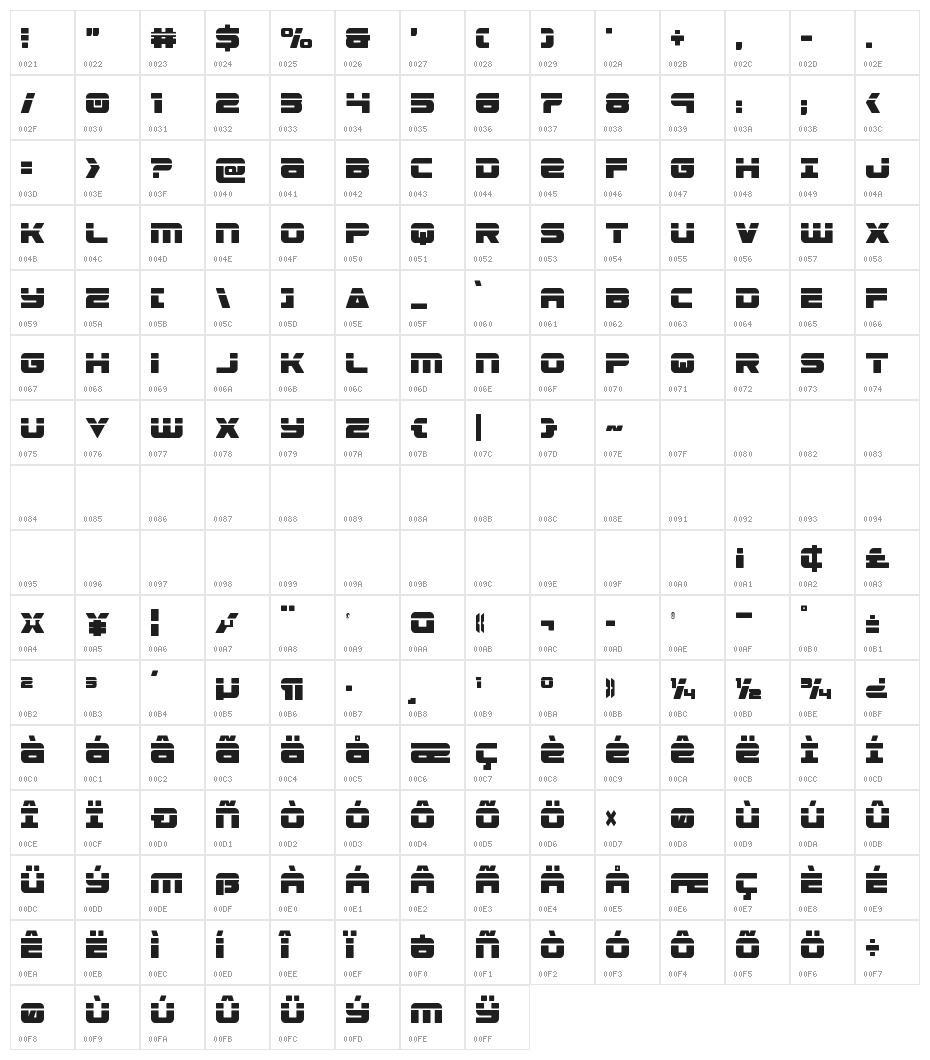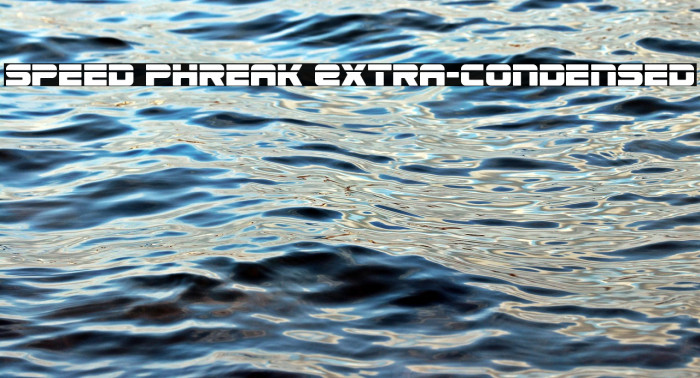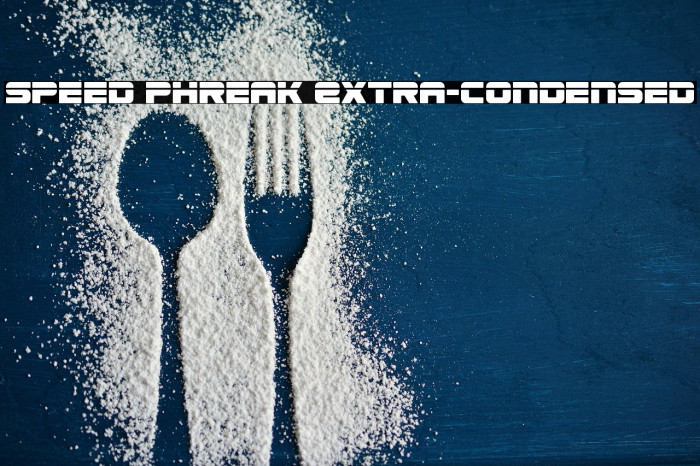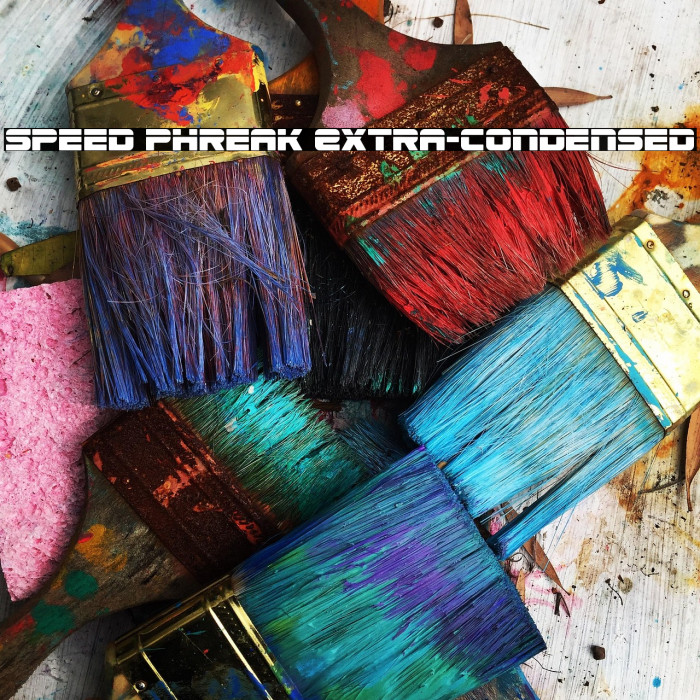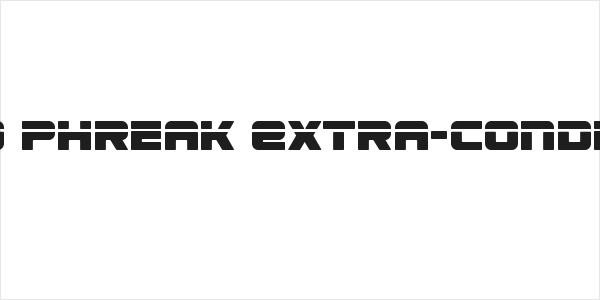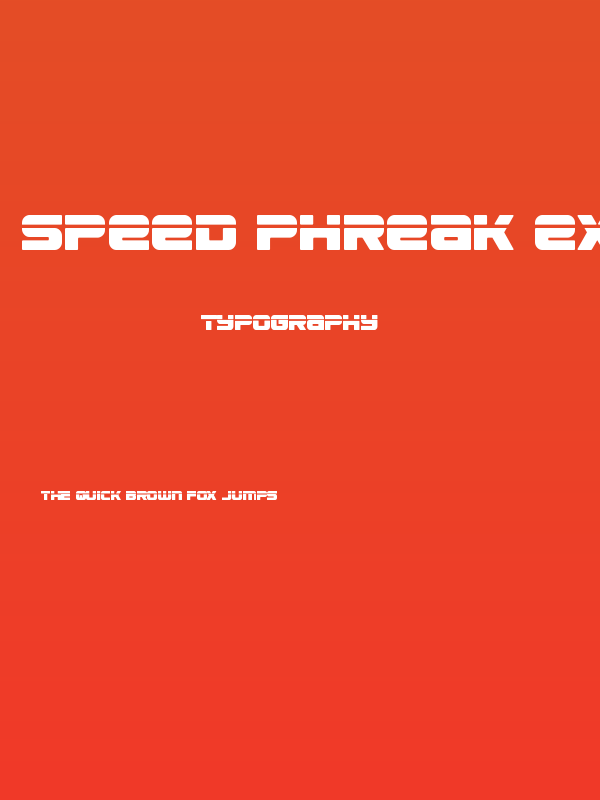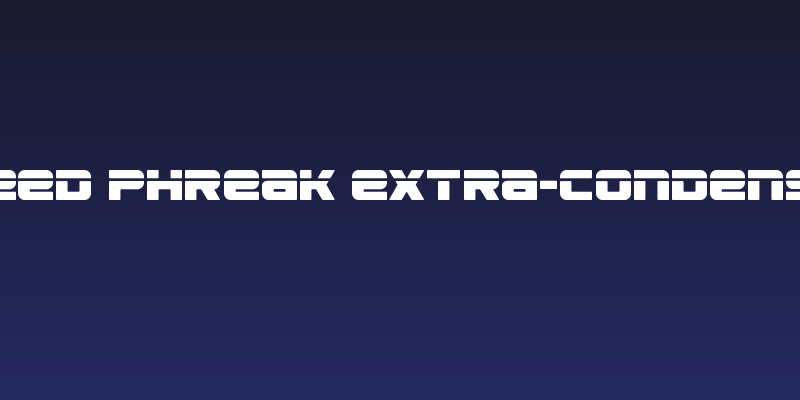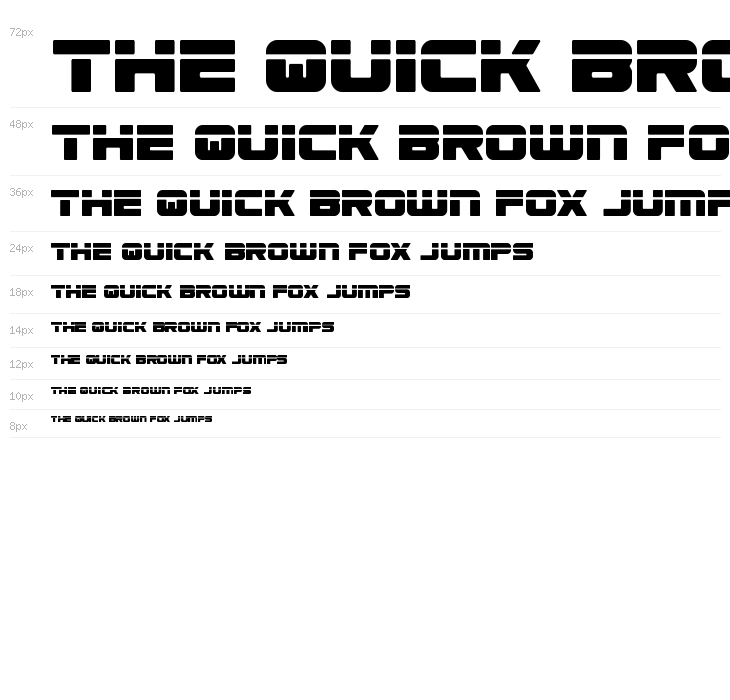
Speed Phreak Extra-Condensed Font
Speed Phreak Extra-Condensed Description
This font exhibits a bold, futuristic design with a distinctly geometric structure. The characters are extra-condensed, creating a compact and streamlined appearance. The angular cuts and sharp edges contribute to a modern, tech-inspired aesthetic. The uppercase and lowercase letters maintain a consistent style, with minimal variation in stroke width, emphasizing uniformity. The numbers and special characters follow the same design principles, ensuring cohesive visual harmony across all elements. This font's unique style makes it stand out, ideal for projects that require a strong, impactful visual presence.